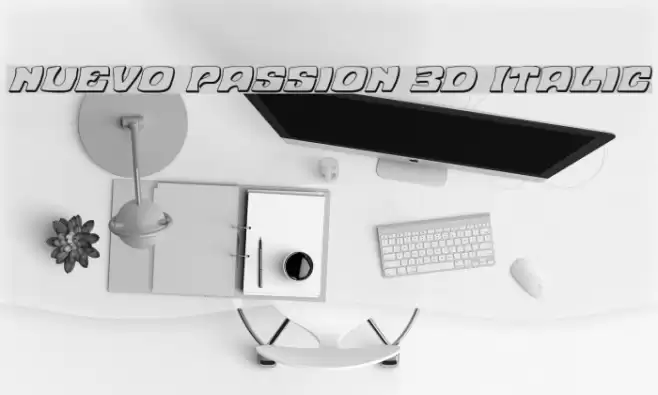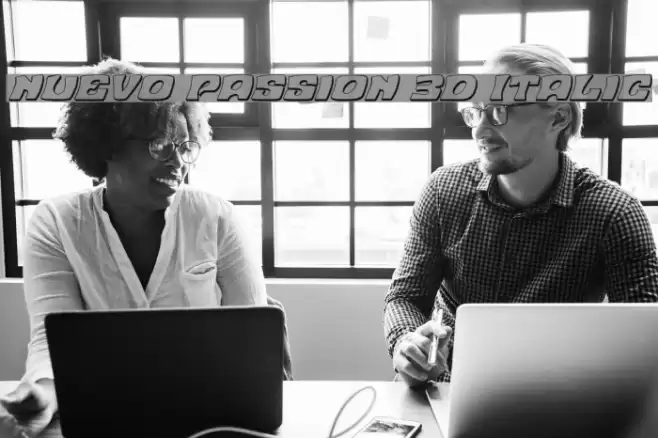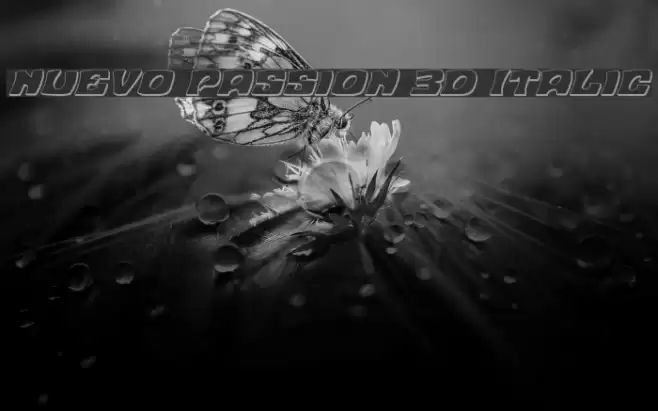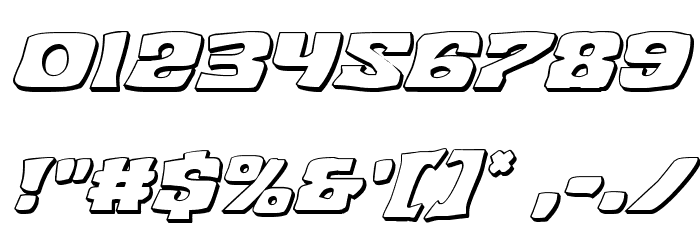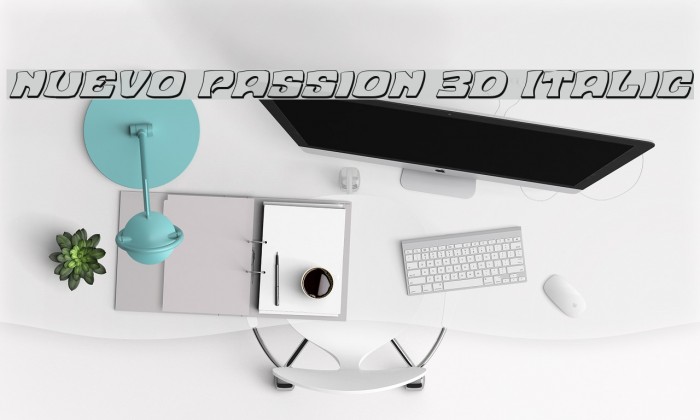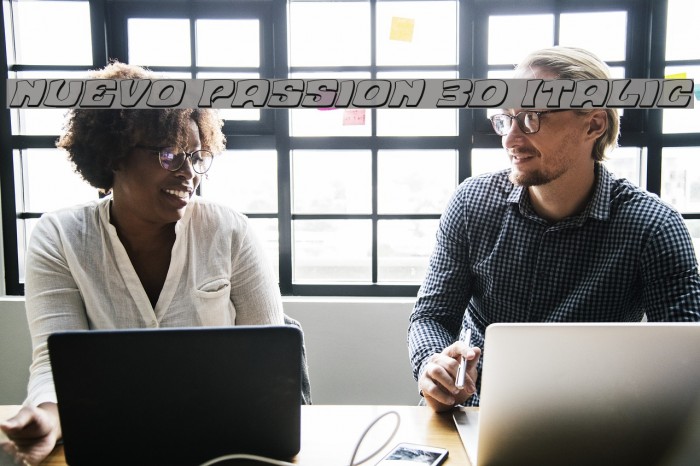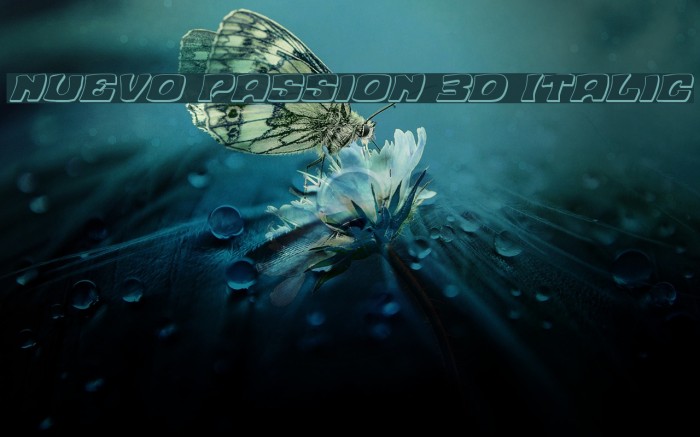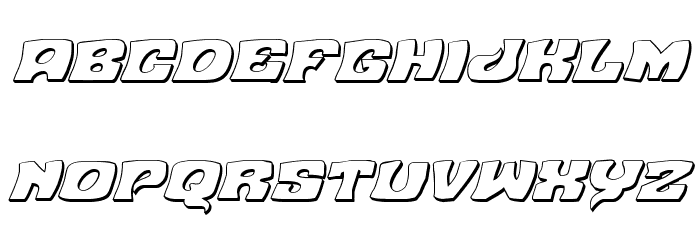
Nuevo Passion 3D Italic Font
Nuevo Passion 3D Italic Description
This font features a bold, three-dimensional appearance with a dynamic italic slant. The characters are outlined, giving them a striking and modern look. The design is playful yet structured, with a consistent thickness throughout each letterform. The uppercase and lowercase letters maintain a cohesive style, while the numerals and special characters complement the overall aesthetic. The font's 3D effect is achieved through a clever use of shading and perspective, making it ideal for eye-catching designs.
A bold, 3D italic font with outlined characters and a modern, dynamic style from Fancy fonts.
- Proposed Projects: This font is perfect for projects that require a bold statement, such as posters, logos, and headlines. Its unique style can also enhance branding materials, advertisements, and digital media.